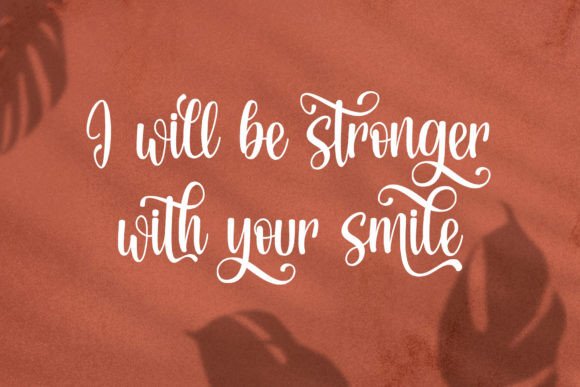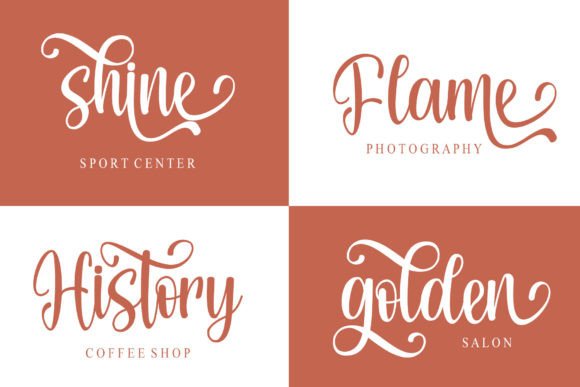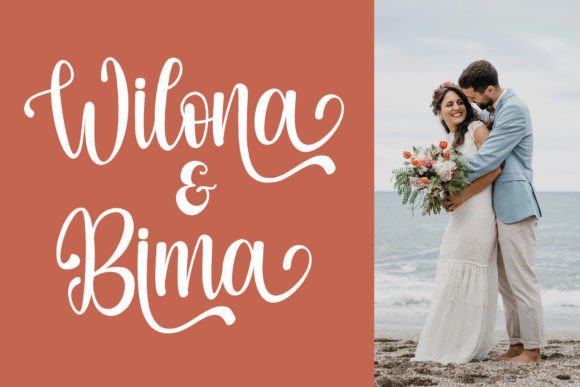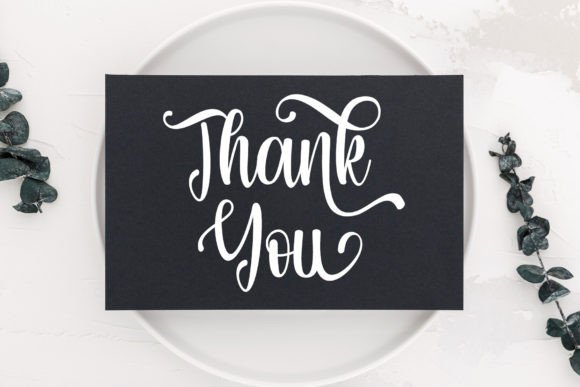
Bogitha Font: A Romantic and Elegant Calligraphy Typeface
In the world of typography, few fonts capture the essence of romance and elegance as beautifully as Bogitha. This stunning calligraphy typeface is designed to make your designs dance with its unique characters that flow along the baseline, creating a sense of movement and fluidity. Whether you’re a designer, crafter, or DIY enthusiast, Bogitha is an excellent choice for a wide range of projects, from logos and wedding invitations to headings, t-shirts, and more.
What Makes Bogitha Special?
Bogitha’s distinctive feature is its romantic and graceful style, which sets it apart from other calligraphy fonts. Its characters are carefully crafted to create a sense of fluid motion, making it perfect for designs that require a touch of elegance and sophistication. The font’s versatility is another significant advantage, as it can be used for various purposes, including:
- Logos: Create a lasting impression with a custom logo that showcases your brand’s personality.
- Wedding Invitations: Make your special day even more memorable with beautifully designed invitations.
- Headings: Add a touch of elegance to your headings and make your content stand out.
- T-shirts: Design stunning apparel with Bogitha’s unique and stylish characters.
- Letterhead: Elevate your business correspondence with a professional and sophisticated letterhead.
- Signage: Create eye-catching signs that grab attention and leave a lasting impression.
- Labels: Design beautiful labels for your products or gifts.
- News: Add a touch of elegance to your news articles and make them more engaging.
- Posters: Create stunning posters that showcase your message in a stylish and sophisticated way.
- Badges: Design custom badges that make a statement.
Why Choose Bogitha?
There are many reasons why Bogitha is an excellent choice for designers and crafters. Here are a few:
- Unique and Elegant Style: Bogitha’s romantic and graceful style sets it apart from other calligraphy fonts.
- Versatility: The font can be used for a wide range of projects, from logos and wedding invitations to headings and t-shirts.
- High-Quality Design: The font is designed with high-quality craftsmanship, ensuring that your designs look professional and polished.
Tips for Using Bogitha
Here are a few tips for getting the most out of Bogitha:
- Experiment with Different Sizes: Bogitha looks great in a variety of sizes, from large headings to smaller body text.
- Pair with Other Fonts: Bogitha pairs well with a variety of fonts, so don’t be afraid to experiment with different combinations.
- Use for Branding: Bogitha’s unique and elegant style makes it an excellent choice for branding and logo design.
Bogitha is a stunning calligraphy typeface that is sure to elevate your designs to the next level. Its unique and elegant style, versatility, and ease of use make it an excellent choice for designers and crafters. Whether you’re looking to create a custom logo, wedding invitation, or heading, Bogitha is a great choice. With its PUA encoding and high-quality design, you can create professional-looking designs that make a lasting impression.